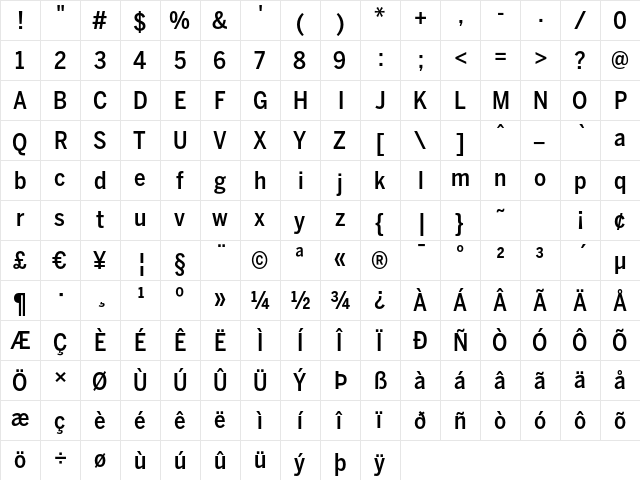
BentonSans Cond Medium Regular
| Foundry | The Font Bureau, Inc |
| Designer | Cyrus Highsmith, Tobias Frere-Jones, and Font Bureau |
Design Context for BentonSans Cond Medium Typeface
BentonSans Cond Medium is a composed and adaptable typeface that performs quietly and consistently across a wide range of design contexts. Its narrow stance lets it pack a punch even in space-constrained designs.